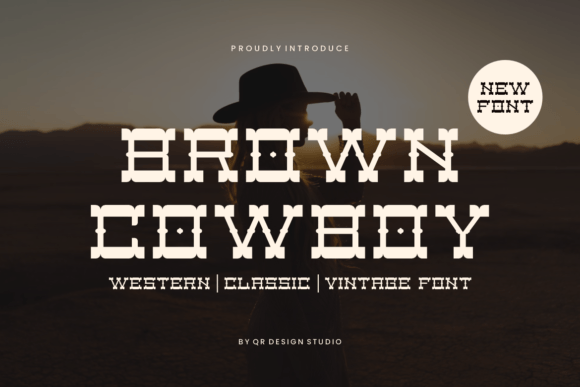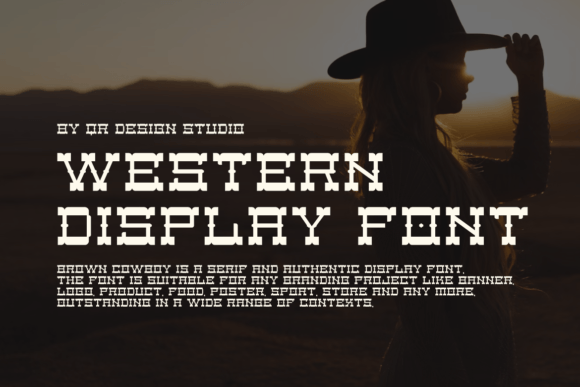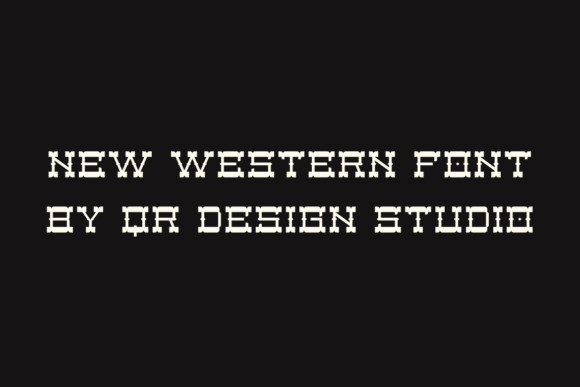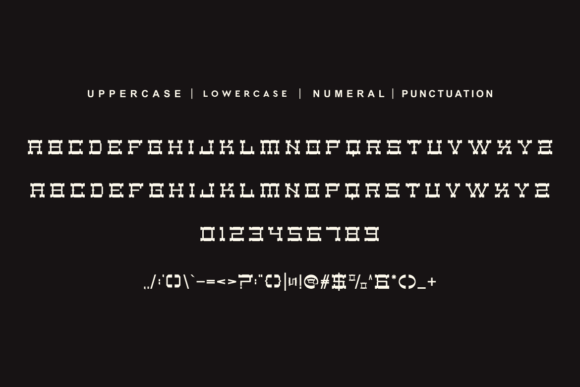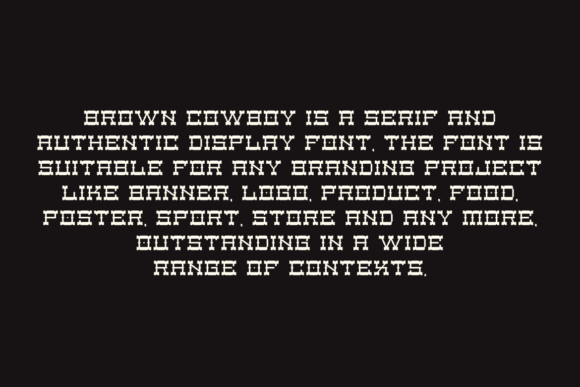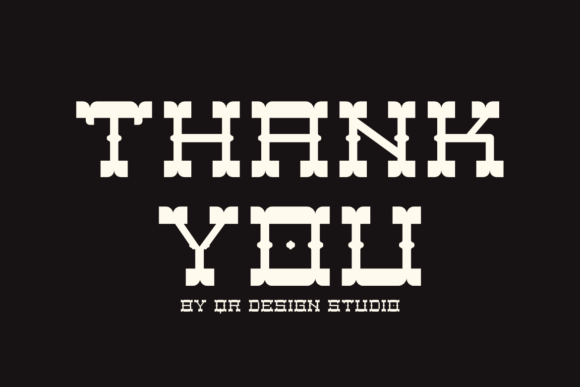
Brown Cowboy Font
About Brown Cowboy Font
Brown Cowboy Font is a decorative and authentic slab serif font. The font is suitable for any branding project like logo, sport, and many more.